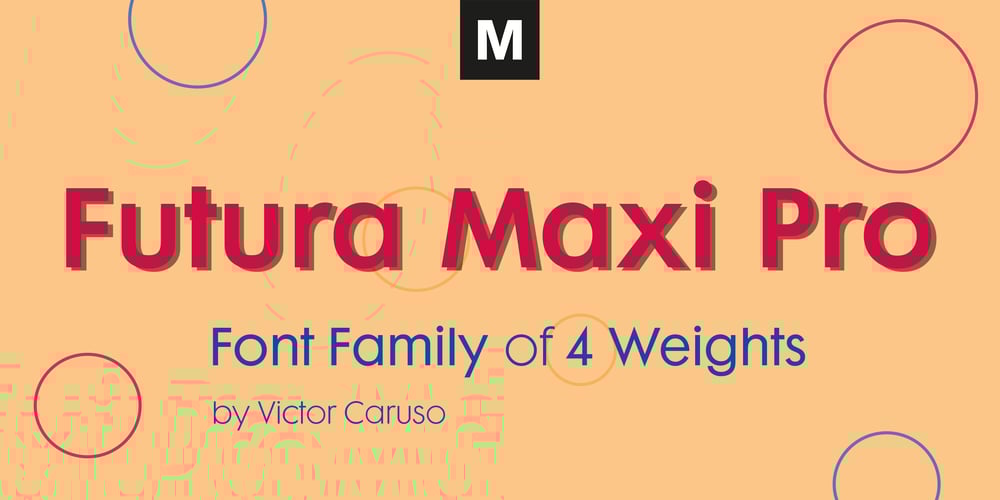
Futura Maxi
Futura Maxi font
Futura Maxi Font Family was designed by Victor Caruso, Paul Renner and published by Monotype. Futura Maxi contains 4 styles and family package options. First presented by the Bauer Type Foundry in 1928, Futura is commonly considered the major typeface development to come out of the Constructivist orientation of the Bauhaus.movement in Germany. Paul Renner (type designer, painter, author and teacher) sketched the original drawings and based them loosely on the simple forms of circle, triangle and square. The design office at Bauer assisted him in turning these geometric forms into a sturdy, functioning type family, and over time, Renner made changes to make the Futura fonts even more legible. Its long ascenders and descenders benefit from generous line spacing. The range of weights and styles make it a versatile family. Futura is timelessly modern; in 1928 it was striking, tasteful, radical – and today it continues to be a popular typographic choice to express strength, elegance, and conceptual clarity. The PL Futura Maxi font family was created by Victor Caruso in 1960 to add more display weights to Paul Renner’s 1927 Futura family. Typefaces in the same style like Futura are: Avenir, Metromedium, Neuzeit Grotesk,